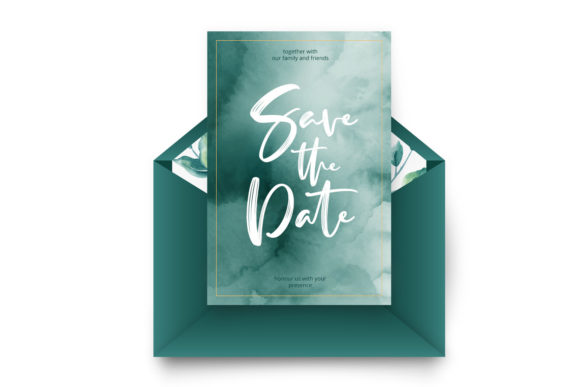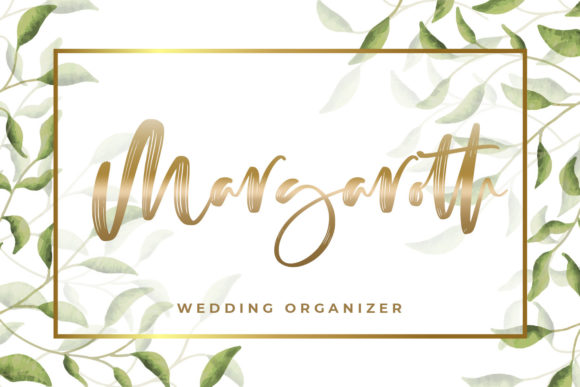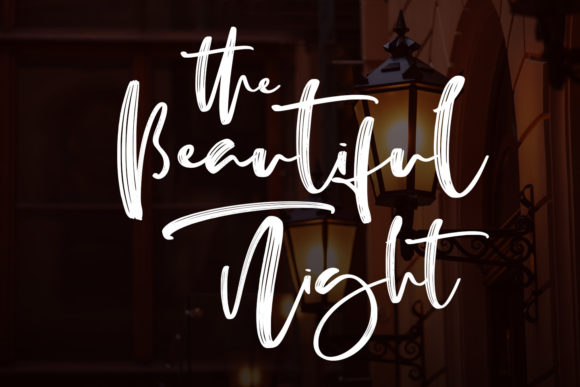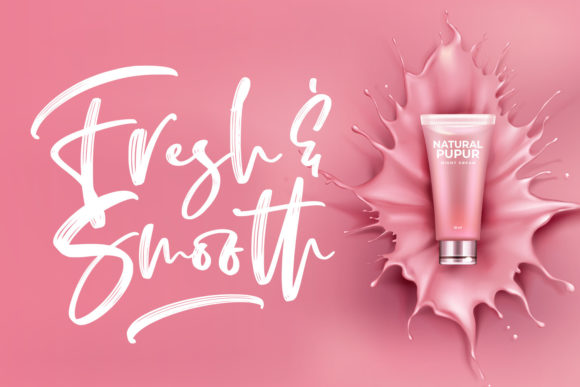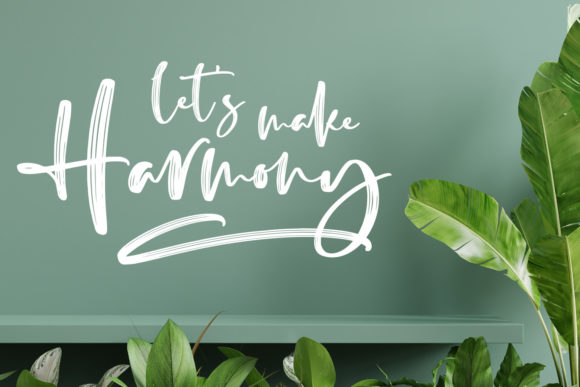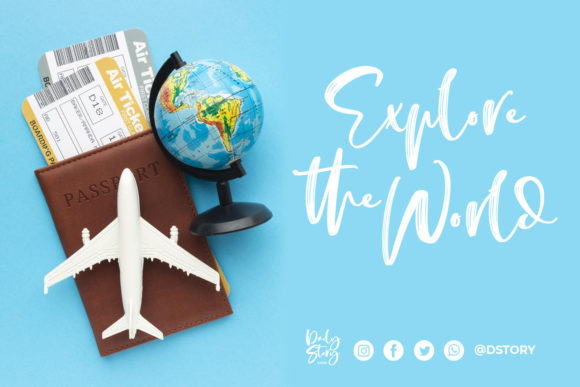
Bologna Script Font: Elevate Your Designs with Elegance and Sophistication
In the world of typography, a font can make or break a design. For designers and crafters looking to add a touch of elegance and sophistication to their projects, the Bologna Script Font is an excellent choice. This modern handwritten font is not only readable but also stylish, making it perfect for fashion branding, editorial designs, and more.
What Makes Bologna Script Font Stand Out?
The Bologna Script Font is defined by its smooth curves, which give it a fluid and natural look. This font is designed to be both beautiful and functional, making it ideal for a wide range of applications. Whether you’re working on a fashion brand, editorial design, or any other project that requires a touch of elegance, this font is sure to impress.
PUA Encoding for Easy Access to Glyphs and Swashes
One of the standout features of the Bologna Script Font is its PUA (Private Use Area) encoding. This means that you can access all of the beautiful glyphs and swashes with ease, giving you even more creative freedom to enhance your designs. With PUA encoding, you can easily insert these special characters into your project, making it even more unique and visually appealing.
Perfect for Fashion Branding and Editorial Designs
The Bologna Script Font is particularly well-suited for fashion branding and editorial designs. Its stylish and modern look makes it perfect for adding a touch of sophistication to any project. For fashion brands, this font can help to create a luxurious and high-end feel, while for editorial designs, it can add a touch of elegance and refinement.
Why Choose Bologna Script Font?
So why choose the Bologna Script Font for your next project? Here are just a few reasons:
• Readability: Despite its elegant look, the Bologna Script Font is highly readable, making it perfect for body text and headlines.
• Style: The smooth curves and beautiful glyphs of this font make it a stylish addition to any design.
• Flexibility: With PUA encoding, you have access to a wide range of glyphs and swashes, giving you the flexibility to create unique and customized designs.
Tips for Using Bologna Script Font
To get the most out of the Bologna Script Font, here are a few tips:
• Use it sparingly: While the Bologna Script Font is beautiful, it can be overpowering if used excessively. Use it sparingly to add a touch of elegance to your design.
• Pair it with a sans-serif font: For body text, consider pairing the Bologna Script Font with a sans-serif font to create a nice contrast.
• Experiment with glyphs and swashes: With PUA encoding, you have access to a wide range of glyphs and swashes. Experiment with these to add a unique touch to your design.
The Bologna Script Font is a beautiful and stylish addition to any design project. With its smooth curves, PUA encoding, and readability, it’s perfect for fashion branding, editorial designs, and more. Whether you’re a designer or crafter, this font is sure to elevate your designs to the next level. So why not give it a try and see the difference it can make?